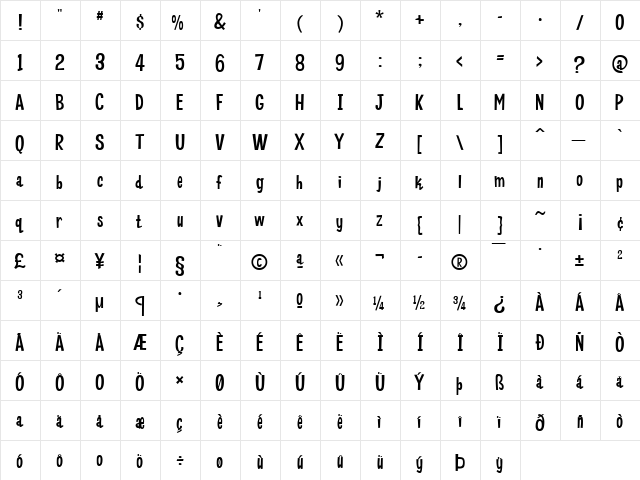
Left Hook Regular
Design Context for Left Hook Typeface
Left Hook offers clean, dependable letterforms without strong stylistic allegiance, making it a practical choice for designers who need flexibility.